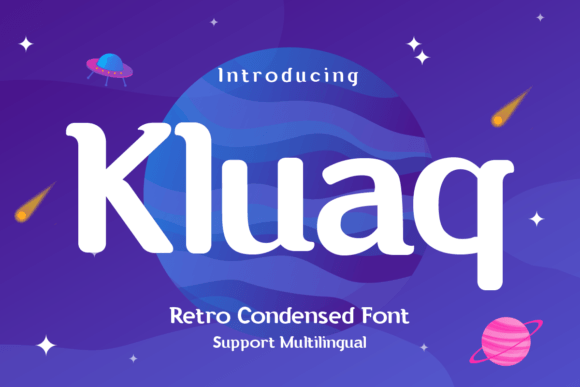
In a realm where creativity reigns supreme, meet Kluaq font, a typographic masterpiece that embodies the essence of retro-modern fusion. This captivating display font, meticulously crafted by aksaratrabas, transcends the ordinary, unleashing a world of design possibilities. With its playful demeanor and professional poise, Kluaq invites you to embark on a visual odyssey, transforming your projects into captivating expressions of art.
Awaken your inner designer and let Kluaq lead you on a journey of typographic exploration. Envision logos and branding that exude a timeless charm, packaging that captivates the senses, and advertising campaigns that ignite imagination. Kluaq's vintage roots, harmoniously blended with a contemporary flair, breathe life into every design element, ensuring your creations stand out from the mundane.
Embrace the quirky and playful spirit of Kluaq font, a font that defies convention. Its whimsical curves and unexpected angles dance across the page, adding a touch of whimsy and delight to any project. Unleash your creativity and let Kluaq ignite your imagination, crafting designs that resonate with personality and charm.
Kluaq font, a versatile chameleon in the world of typography, effortlessly adapts to a myriad of projects. With its inherent versatility, it seamlessly flows from logos and branding to packaging and advertising, captivating audiences with its ability to transform the ordinary into the extraordinary.
Dive into the world of Kluaq font, a font that speaks volumes. Its bold presence commands attention, while its playful undertones invite exploration. Discover a font that empowers you to tell your story with a unique voice, leaving an indelible mark on the hearts and minds of your audience.